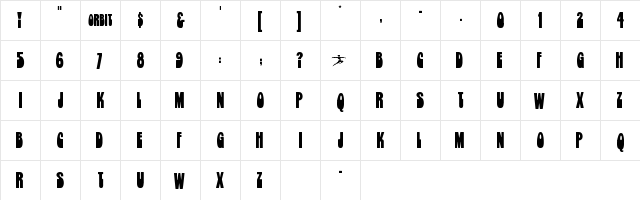
DXS Orbit Regular
Design Context for DXS Orbit Typeface
DXS Orbit is a composed and adaptable typeface that performs quietly and consistently across a wide range of design contexts.